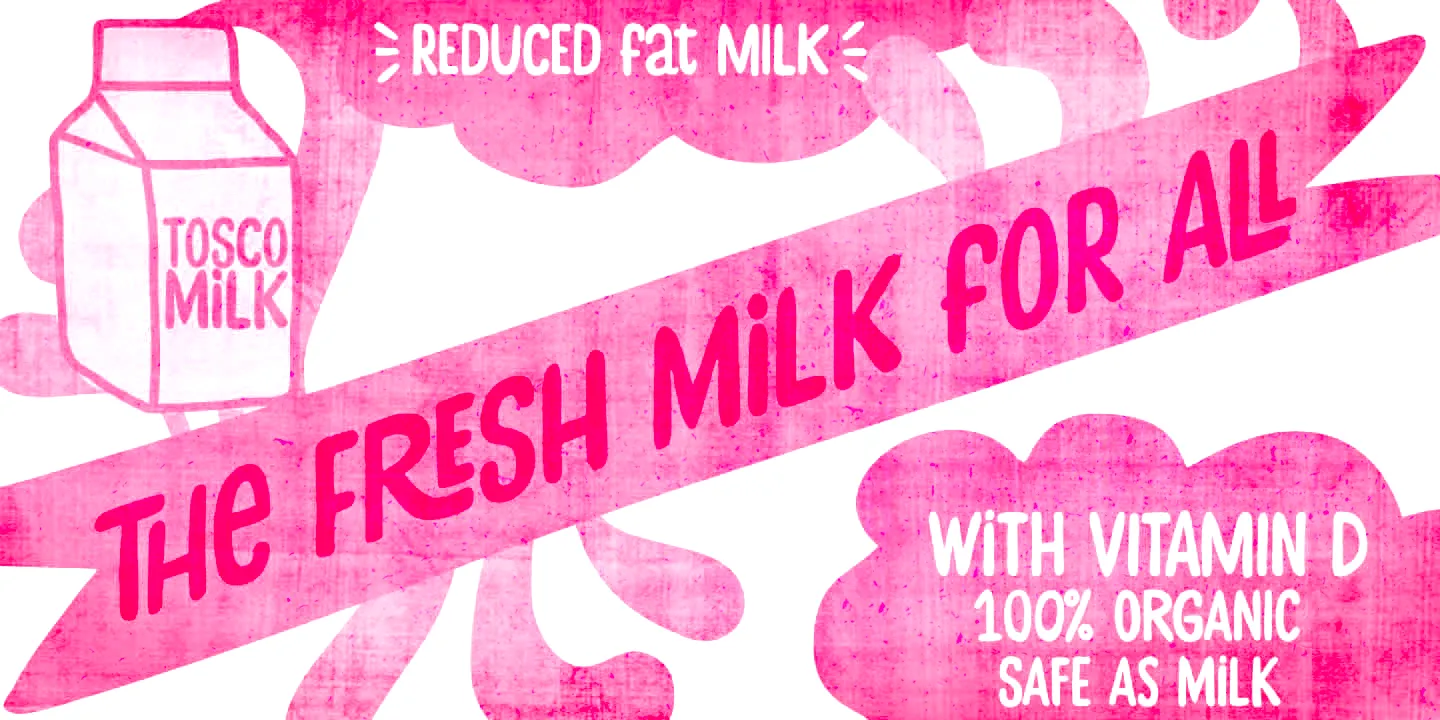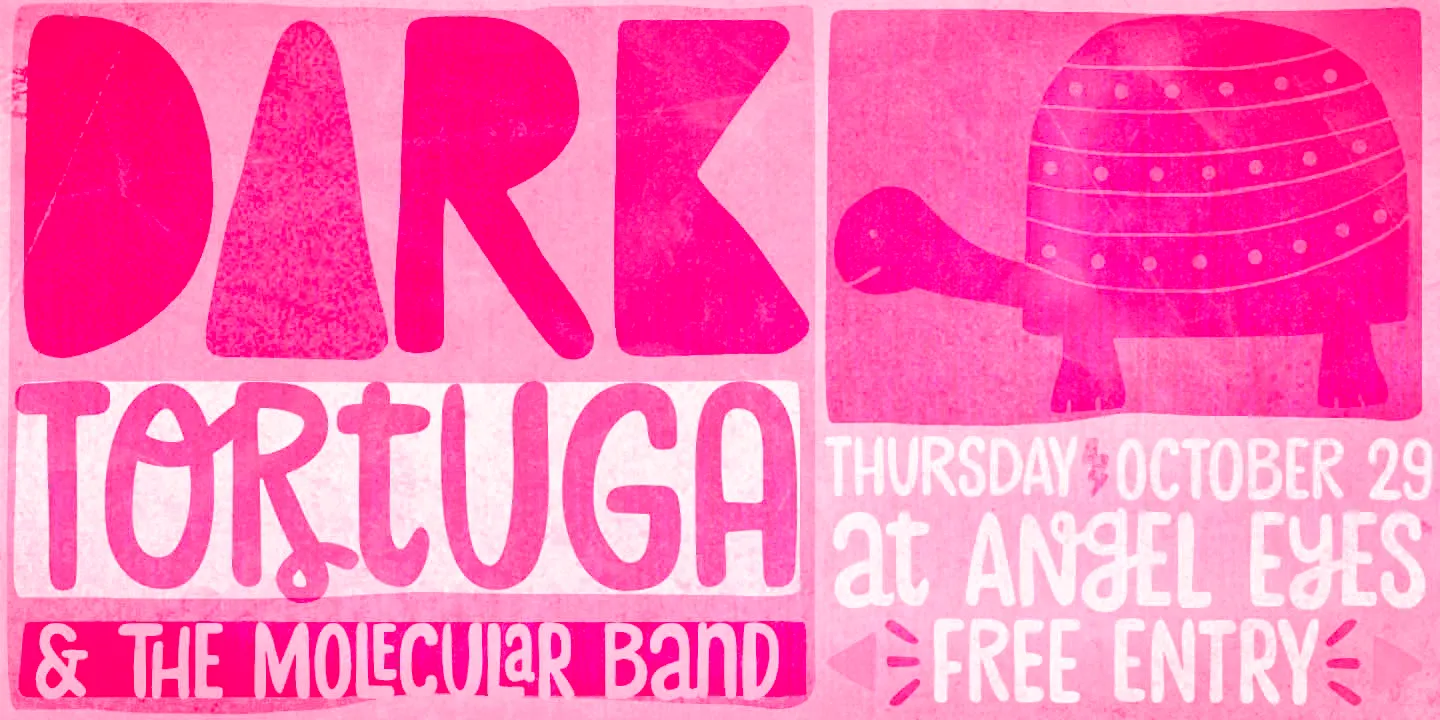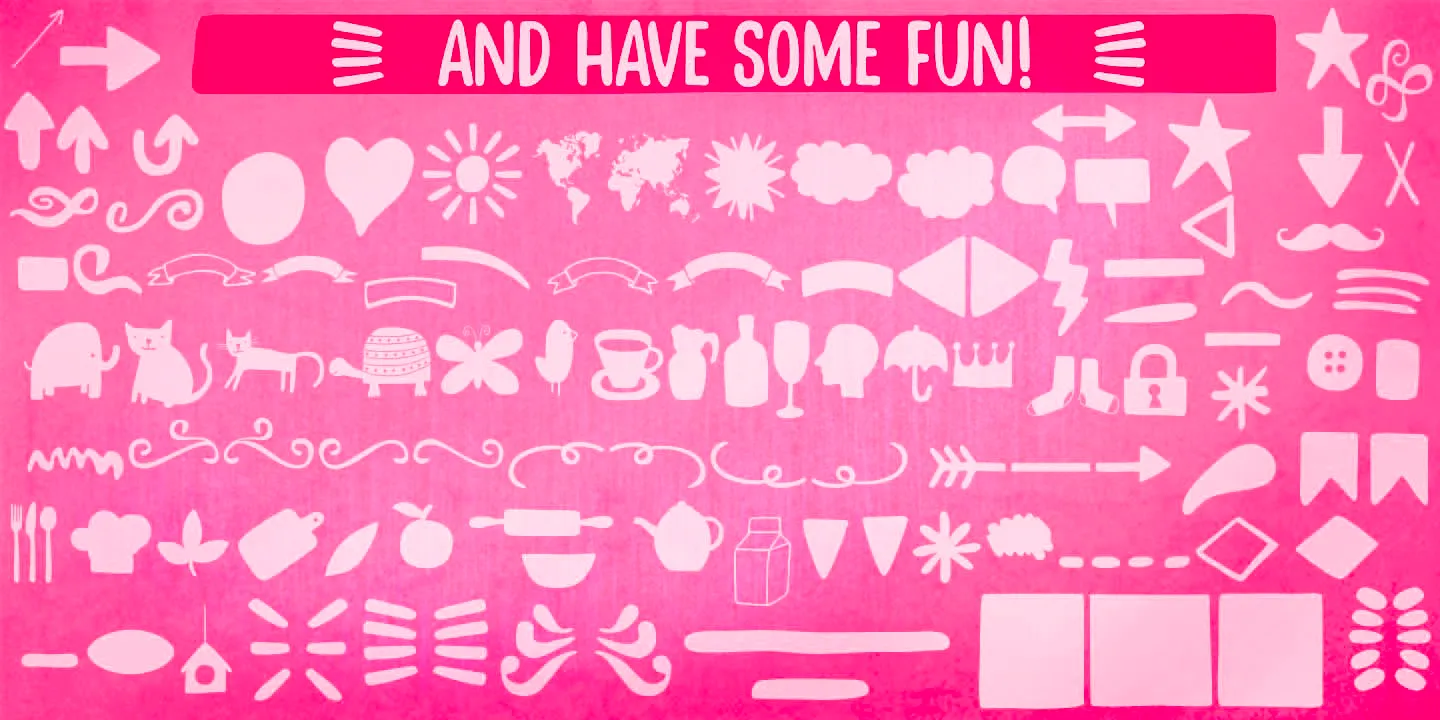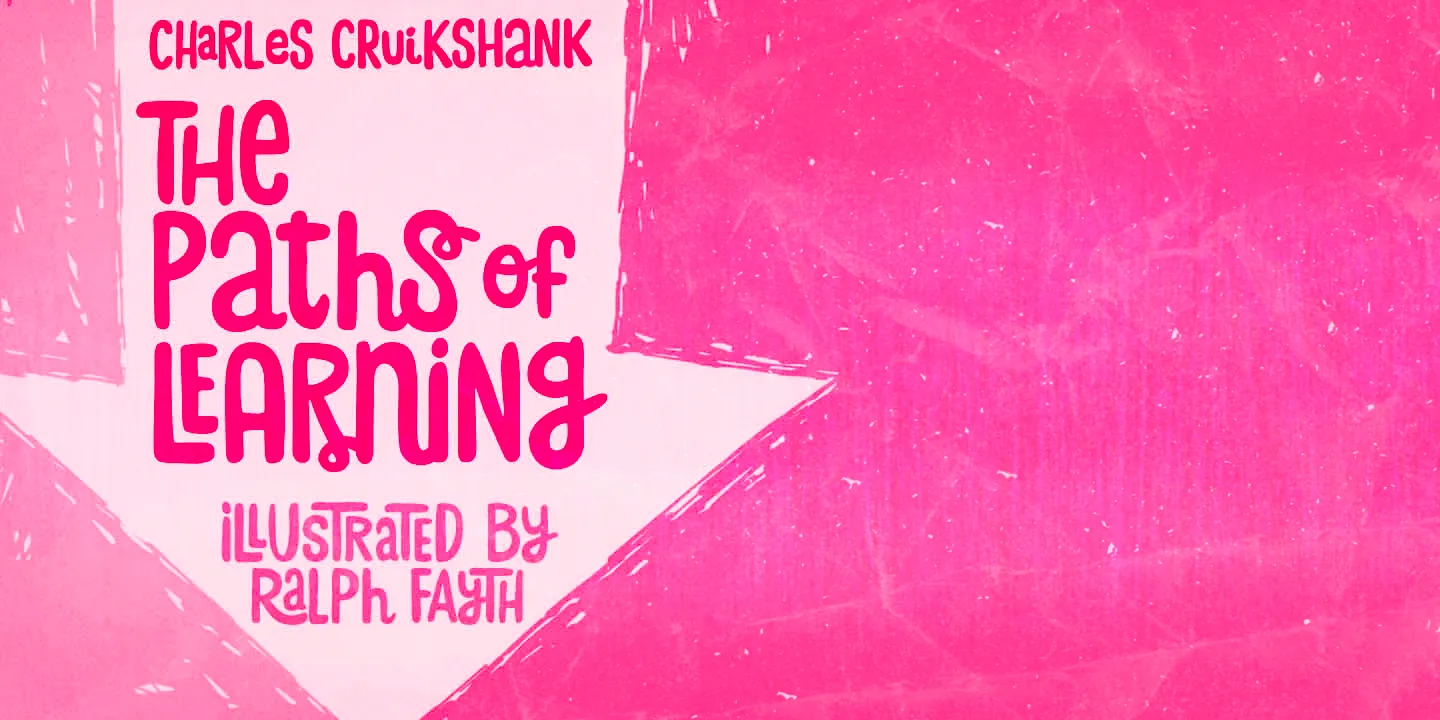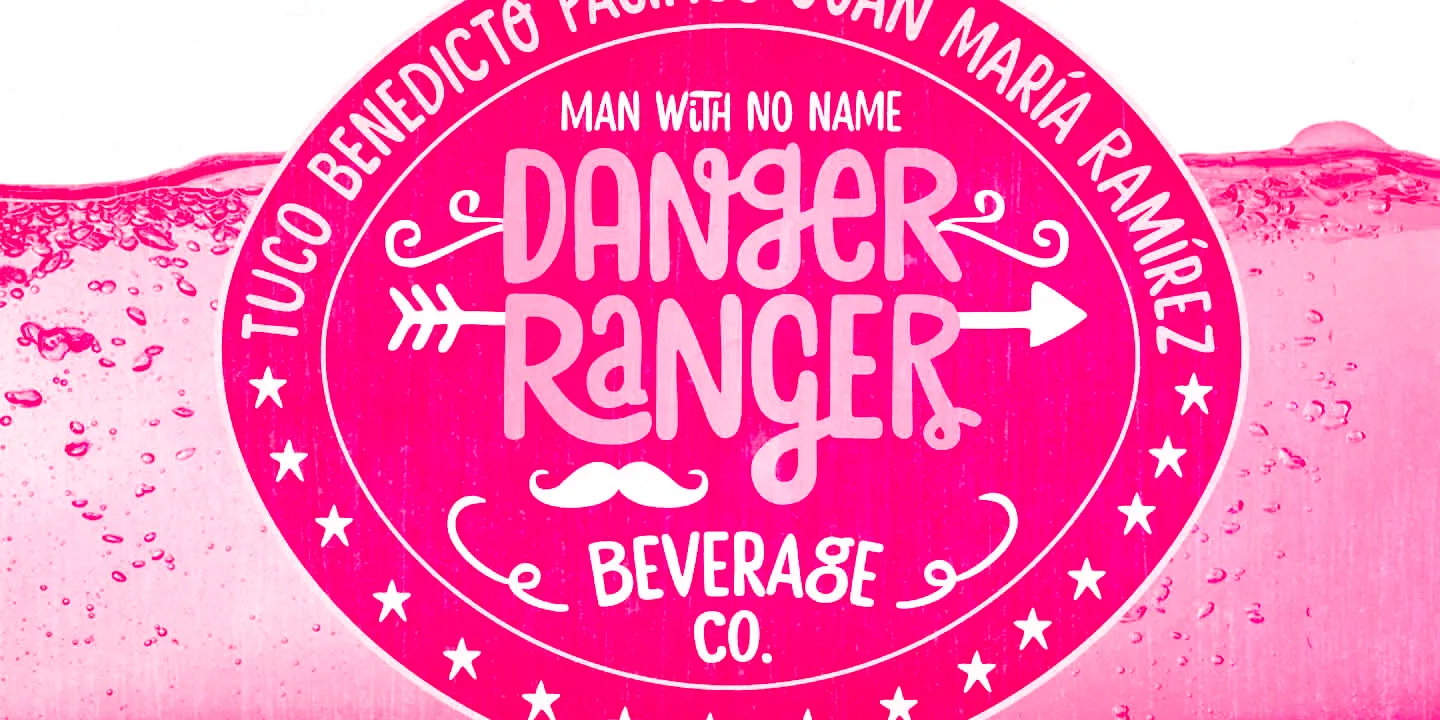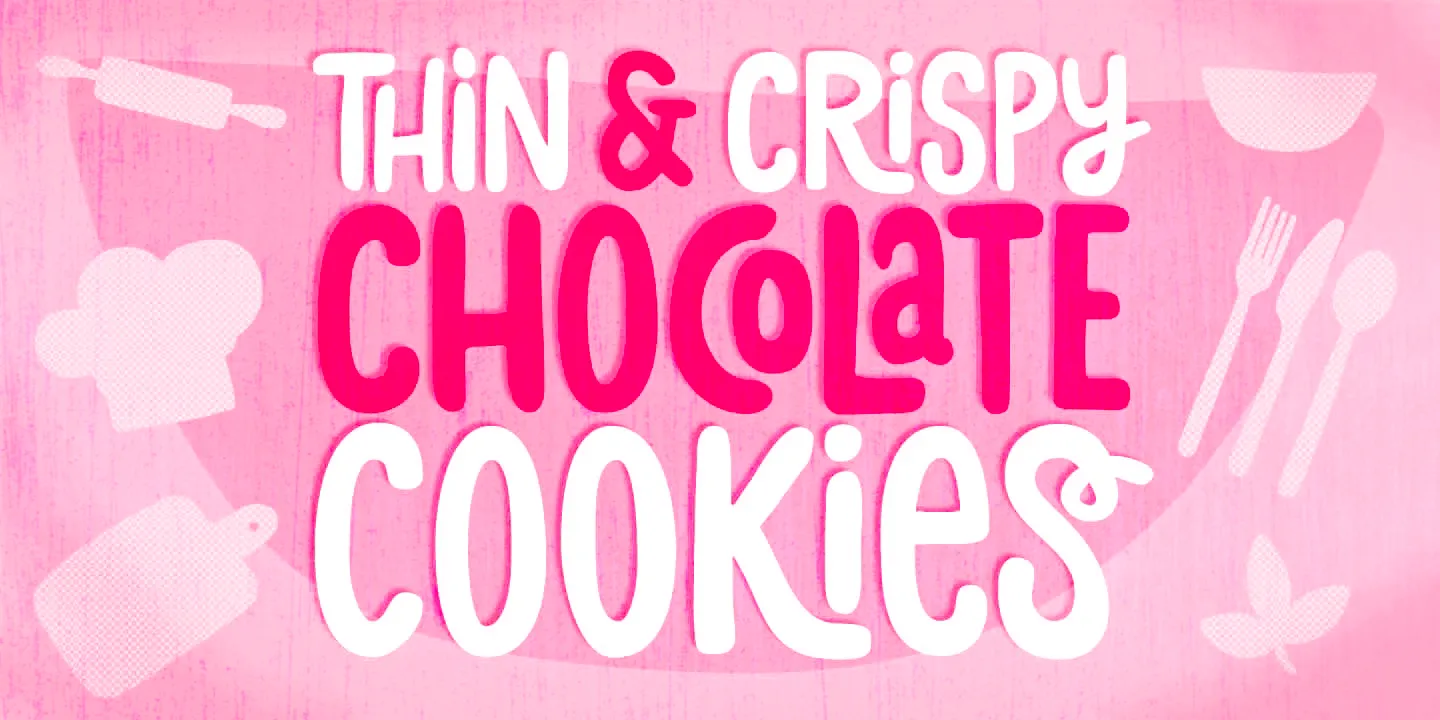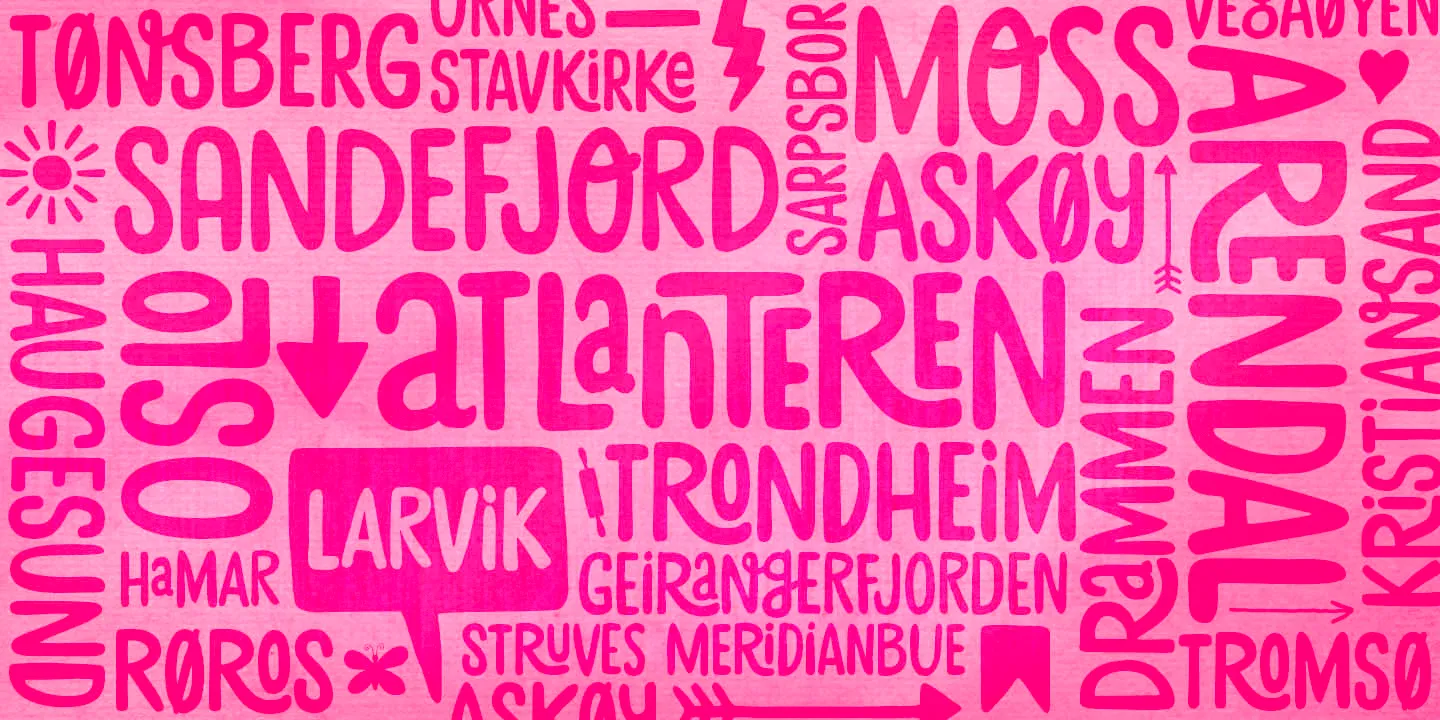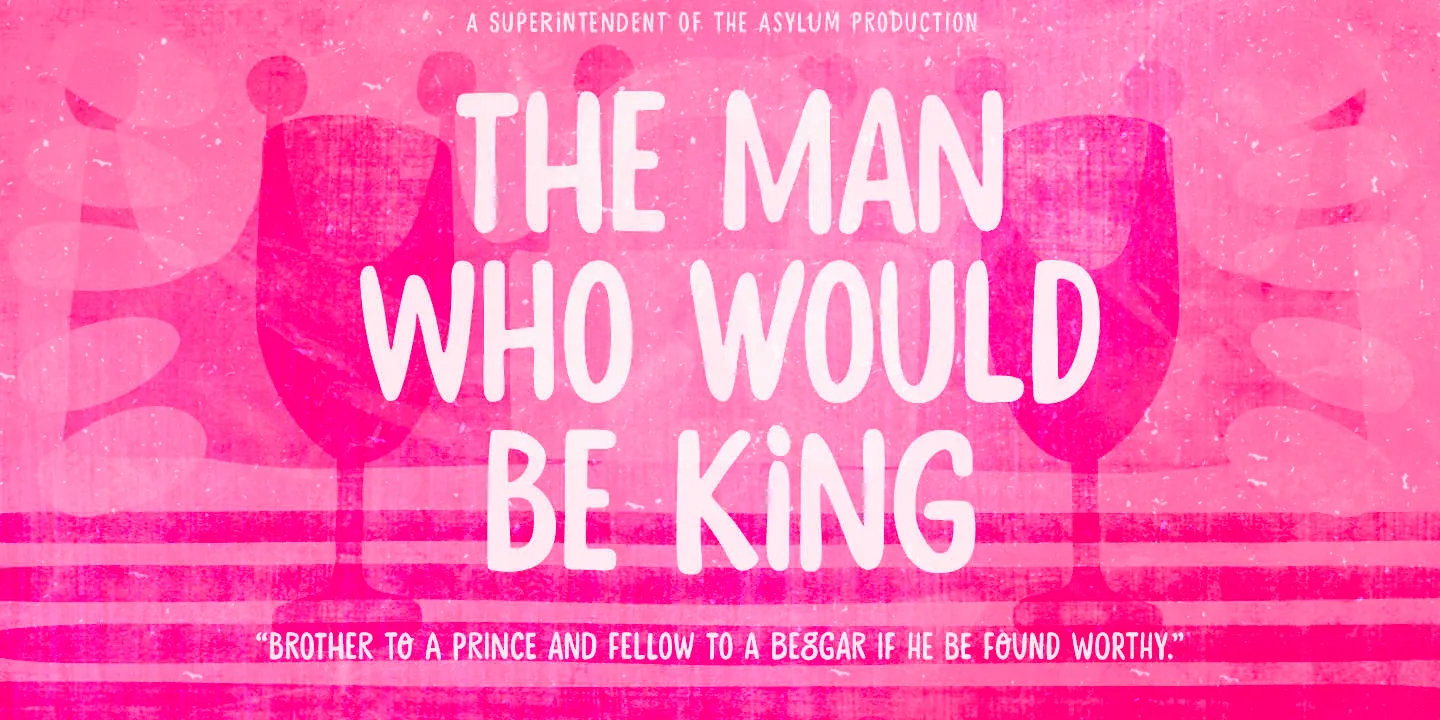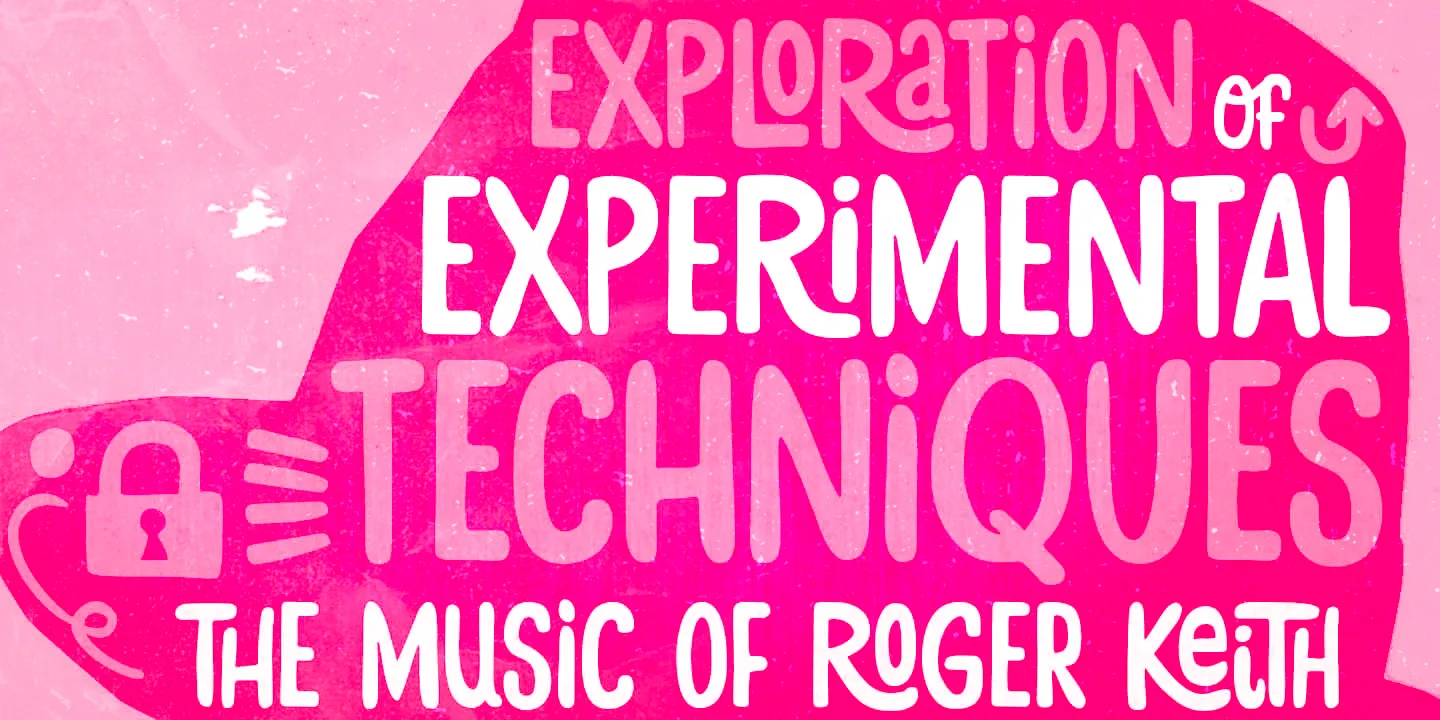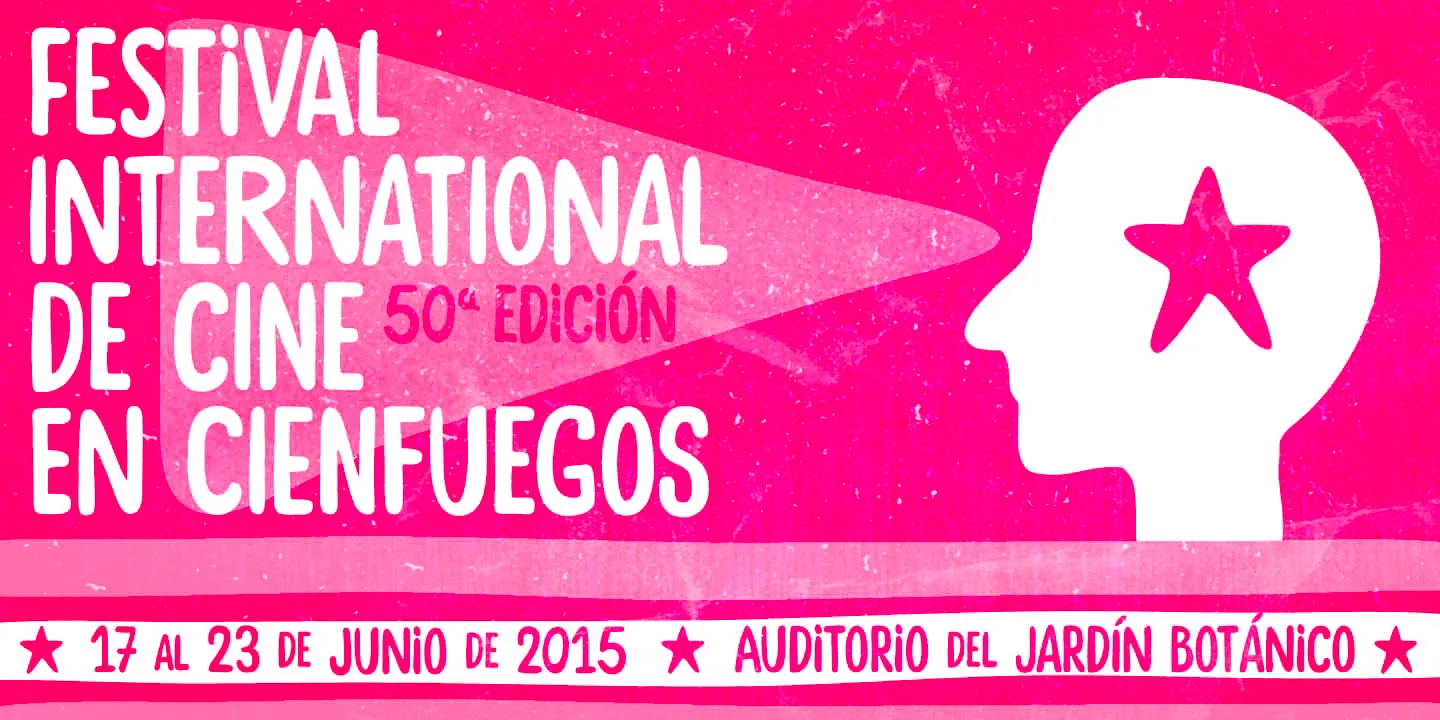
Stick-A-Round Font Family
Stick-A-Round
Stick-A-Round is a stylish contemporary brush-lettered typeface. It started as an attempt to domesticate our wild ​Daft Brush font. During the process, however, it began to take on its own shape and personality, with friendly, rounded terminals, dynamic interlock pairs, and oodles of alternates. Besides showing good humor​, this font has a lovely mate loaded with handy ornaments! Stick-A-Round, have some fun, and jazz-up candy packaging, children’s books, party invitations, and board game designs. ​
• Discretionary Ligatures